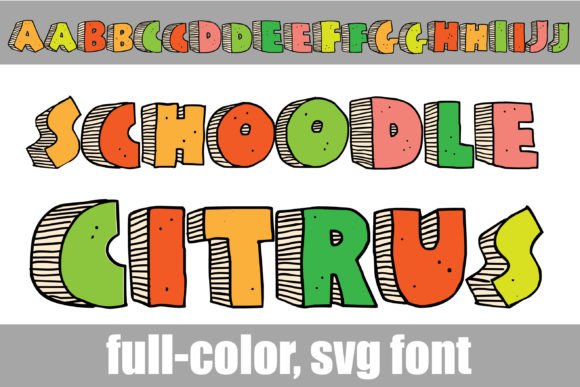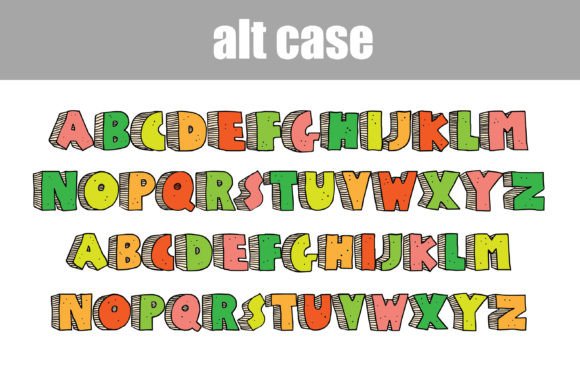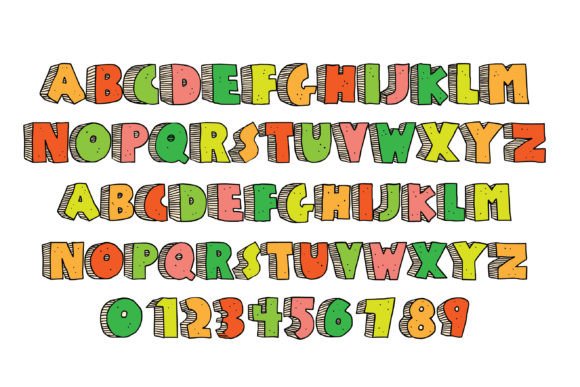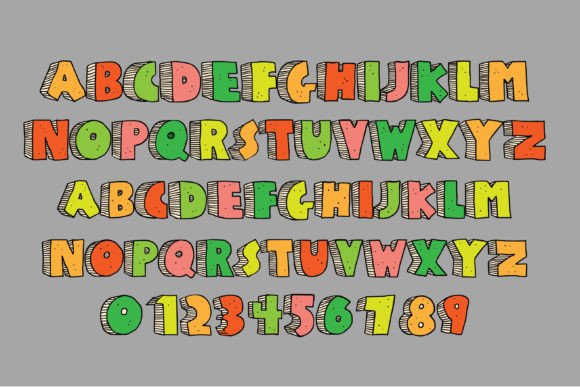
Schoodle Citrus Font
About the Schoodle Citrus Font
The wait is over! The incredible Schoodle Citrus Font is now available for your design toolkit. This full-color font features a hand-sketched font with a thick 3d shadow and a whimsical, citrus color palette. There is an alt case with additional colors you can access through your system’s character map. This font works best for titles, displays, posters and more. Please note color fonts will show as black in non compatible programs. This font type is compatible with Silhouette Studio.